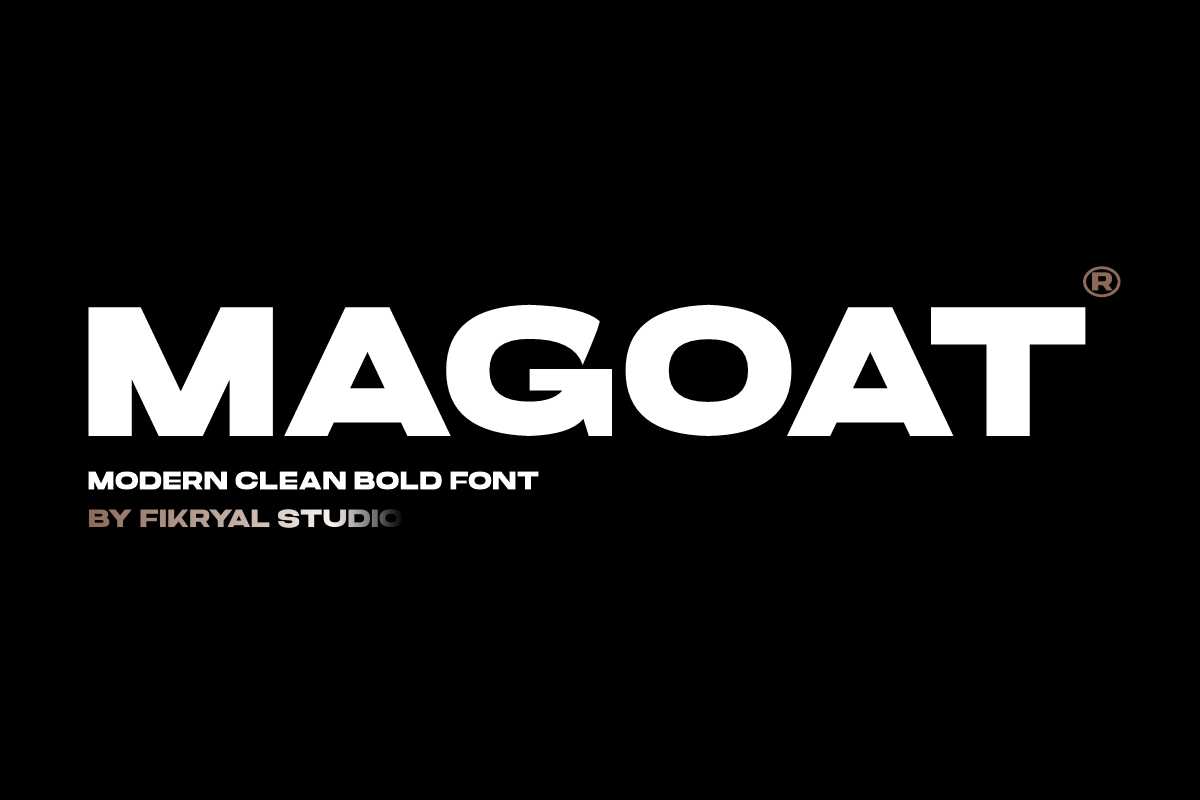
Magoat Font Free Download is a bold and creative typeface designed to stand out with its unique, edgy style. With its strong letterforms and sharp, distinctive design, this font is perfect for creating impactful headlines, logos, posters, social media graphics, and any project that requires attention-grabbing typography.
The font’s modern yet artistic appeal makes it ideal for dynamic branding, music posters, creative advertising, and other projects where you want your text to have a bold presence. Whether you're designing for an edgy brand or looking to add personality to your work, Magoat Font Free Download adds power and flair to your designs.